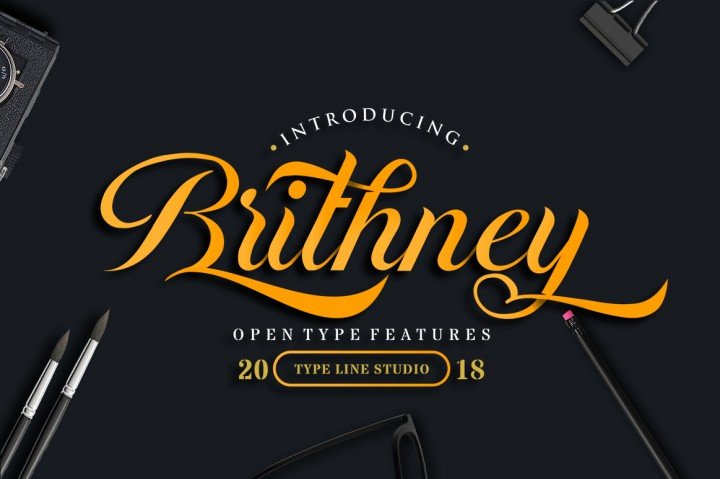
Brithney Script Font
A new fresh & modern classic script with a handmade calligraphy style. Catchy for all your creativity. Introducing Brithney Font! It is was designed and shares by typelinestudio. The Brithney is a display font inspired by antiquity brands. It has a modern, yet authentic look which makes it perfect for designs that need a striking and unique typeface.